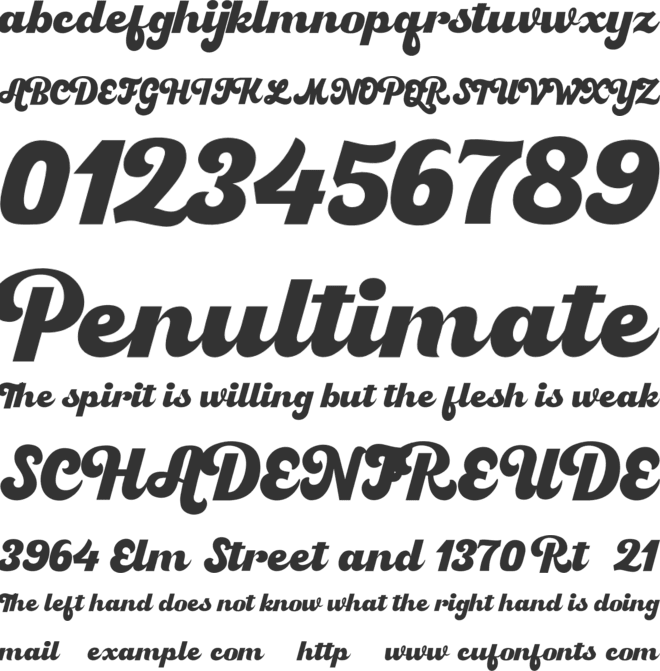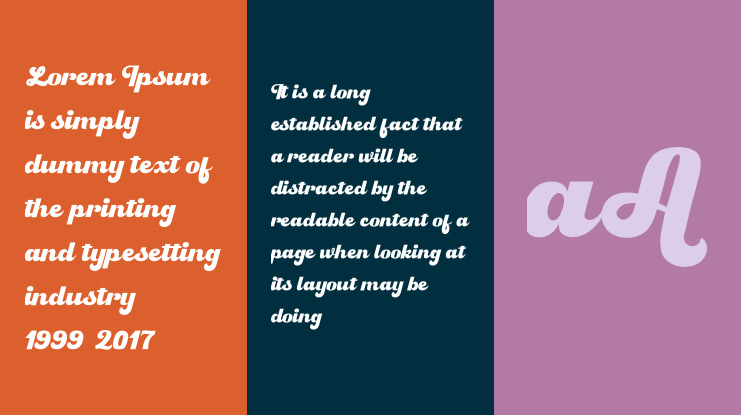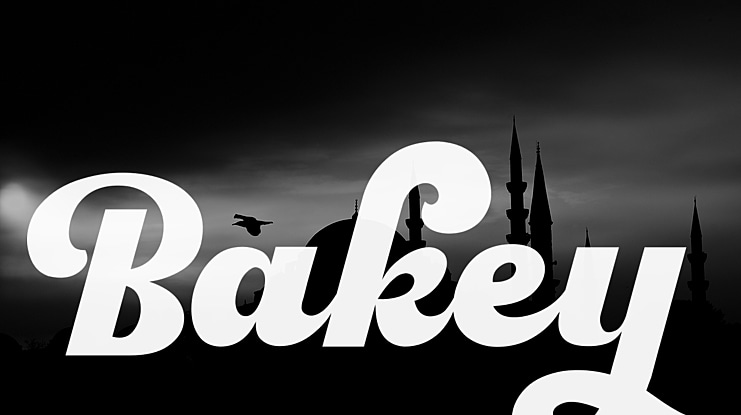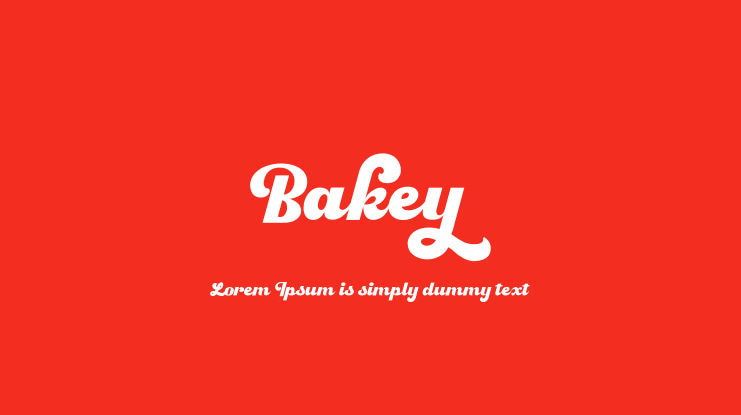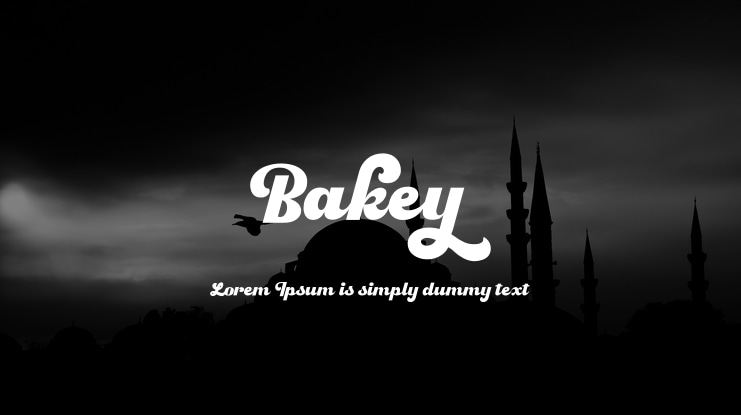
Bakey Font
Bakey is a modern and bold script typeface inspired from 60's and 70's script lettering. With bold high contrast stroke, fun character with a bit of ligatures and alternate stylistic. To give you an extra creative work.
This font is perfect for to create logos, branding, stickers, shirts, signs, posters, quotes, instagram posts, procreate designs and more! Note This font is not included with "Shadow/ Extrude", it was created manually for display purposes only.